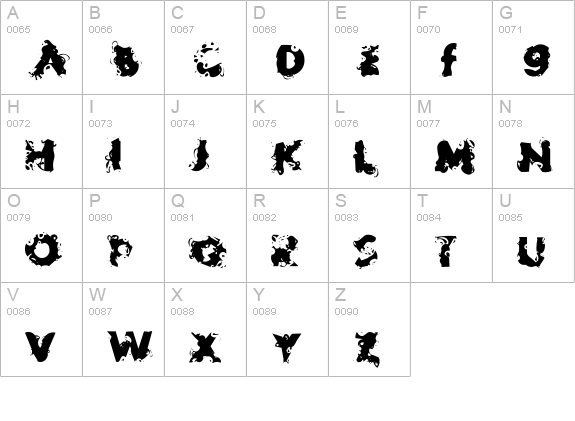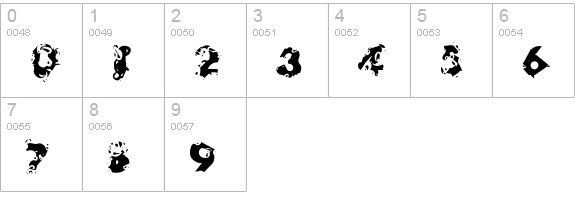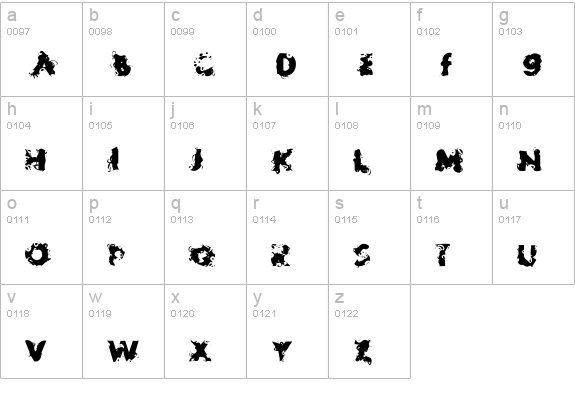
DizzySpell-Basic Font Details
DizzySpell-Basic font is a whimsical and playful typeface that is sure to add a touch of fun to any design project. With its quirky and unique letterforms, this font is perfect for creating eye-catching headlines, branding materials, and more. The DizzySpell-Basic font is free to download at FontsMarket.com, making it easily accessible for both personal and commercial use. Whether you're looking to add a splash of creativity to your next project or simply want to experiment with a new font style, DizzySpell-Basic is the perfect choice. Download it today and let your imagination run wild!